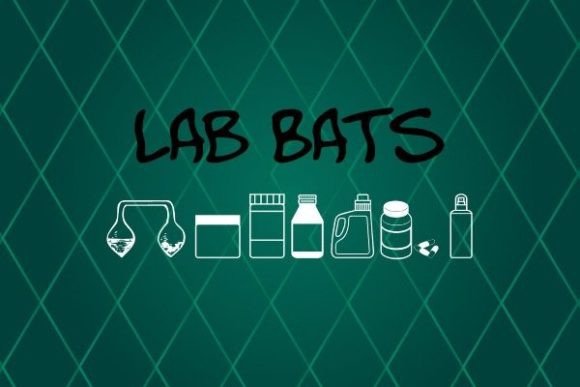
Introduction to Lab Bats Font
Imagine you’re working on a creative project and you need that one special touch to make it stand out. You’re scrolling through design resources, searching for the perfect element to elevate your work. Suddenly, you stumble upon a quirky collection of icons that catches your eye – the Lab Bats Font. This unique font, created by Apostrophic labs, is an instant winner for anyone looking to add a little whimsy to their design.
The Lab Bats Font is more than just a decorative element; it’s a high-quality resource that can add depth and personality to your work. With its transparent background, it’s easy to integrate into your project without overpowering the other design elements. Whether you’re working on a branding project or creating digital art, this font is a valuable asset for any designer looking to take their work to the next level.
Key Features of Lab Bats Font
- High-quality design resource ideal for creative projects requiring a unique touch
- Features a distinctive and quirky design style, making it perfect for adding a touch of whimsy to creative projects
Honest Review: Lab Bats Font
As a designer, I’m always on the lookout for high-quality design resources to enhance my creative projects. Recently, I stumbled upon the Lab Bats Font, which I’ll be reviewing today.
- ✨ Unique and quirky design: The Lab Bats Font has a distinct, hand-drawn feel that sets it apart from more traditional fonts.
- ✨ High quality: The font is well-crafted and has a high level of detail, making it perfect for designs that require a more organic look.
- ⚠️ Limited character set: The font only includes a limited character set, which may not be sufficient for longer texts or complex designs.
- ⚠️ Not suitable for body text: Due to its unique design, the Lab Bats Font may not be the best choice for body text, as it can be difficult to read in larger quantities.
Overall, I think the Lab Bats Font is a great addition to any designer’s toolkit. Its unique design and high quality make it perfect for creative projects that require a more organic look. However, its limitations should be taken into consideration when deciding whether to use it for a particular design.